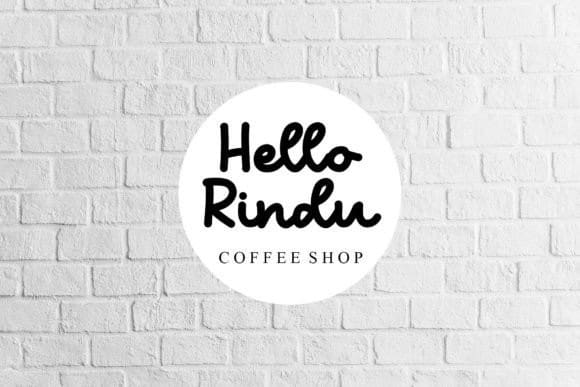
Homeland Script Font
Homeland Script Font, is a neat and fresh handwritten font. It is the best choice for creating eye-catching logos, branding, and quotes. Every letter has a unique and beautiful touch, which will make your design come alive!